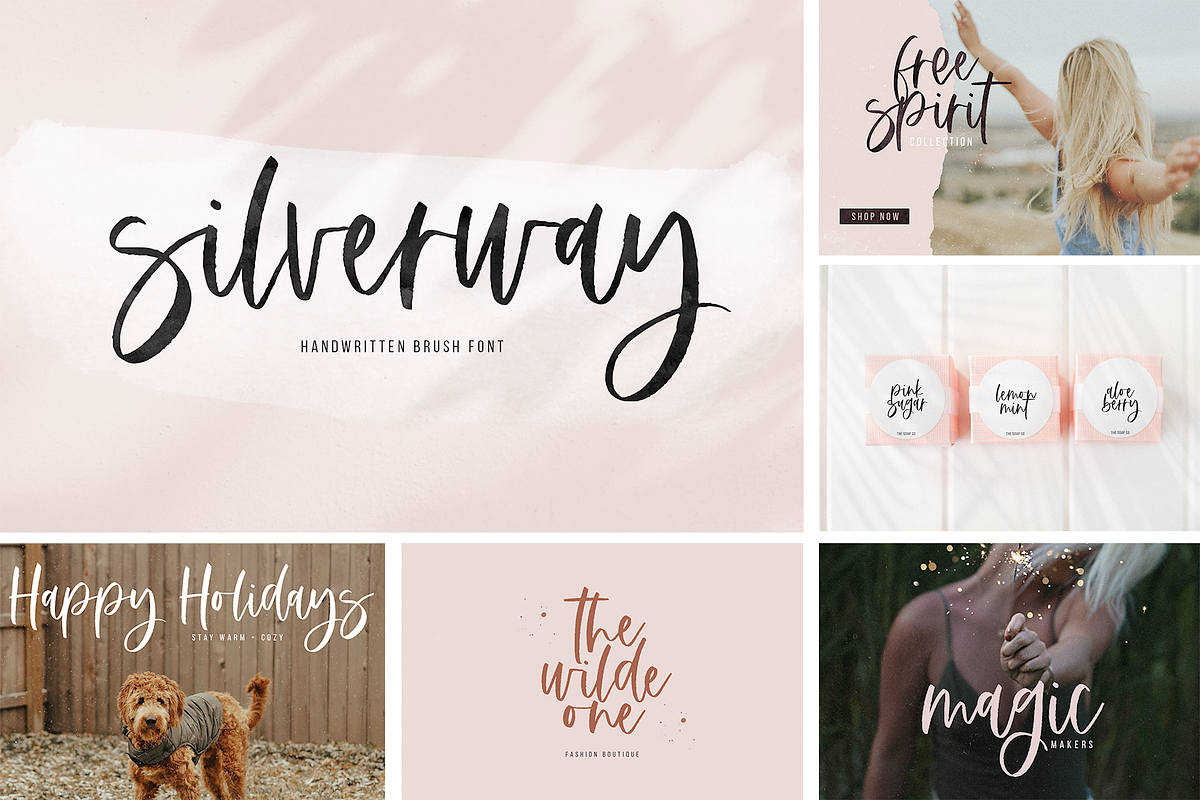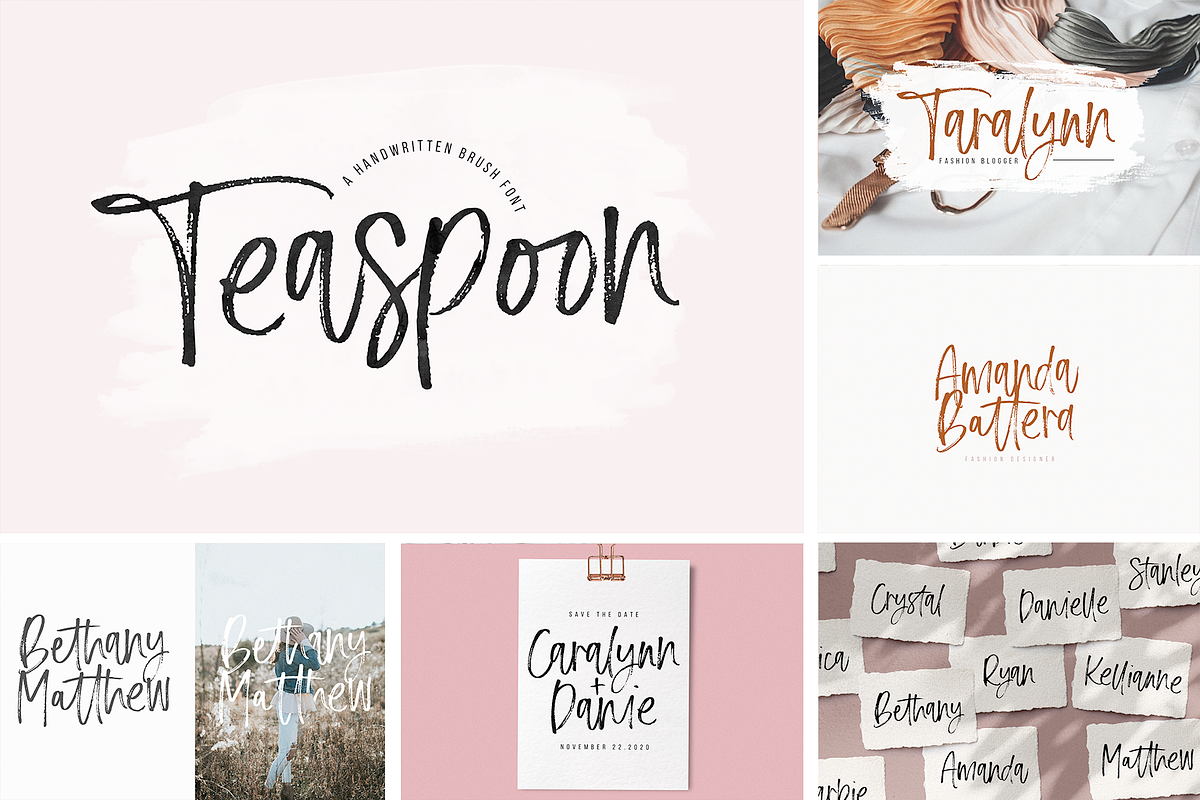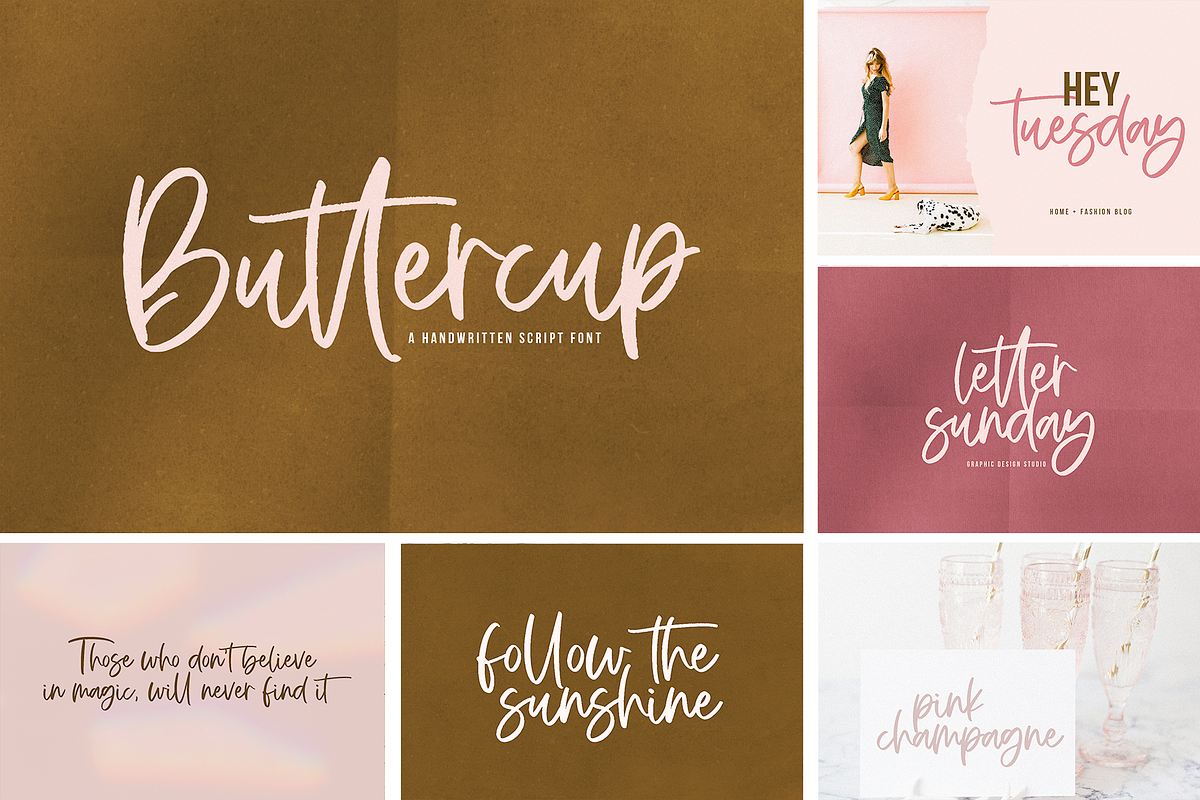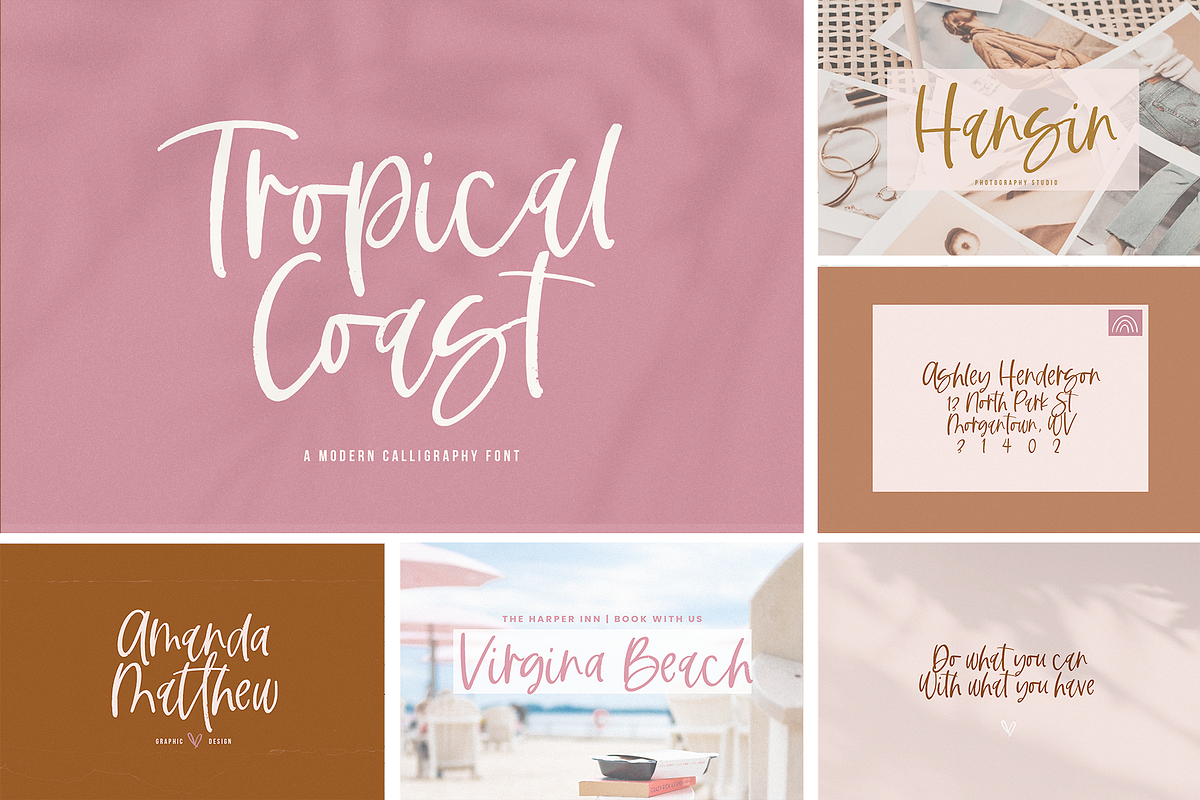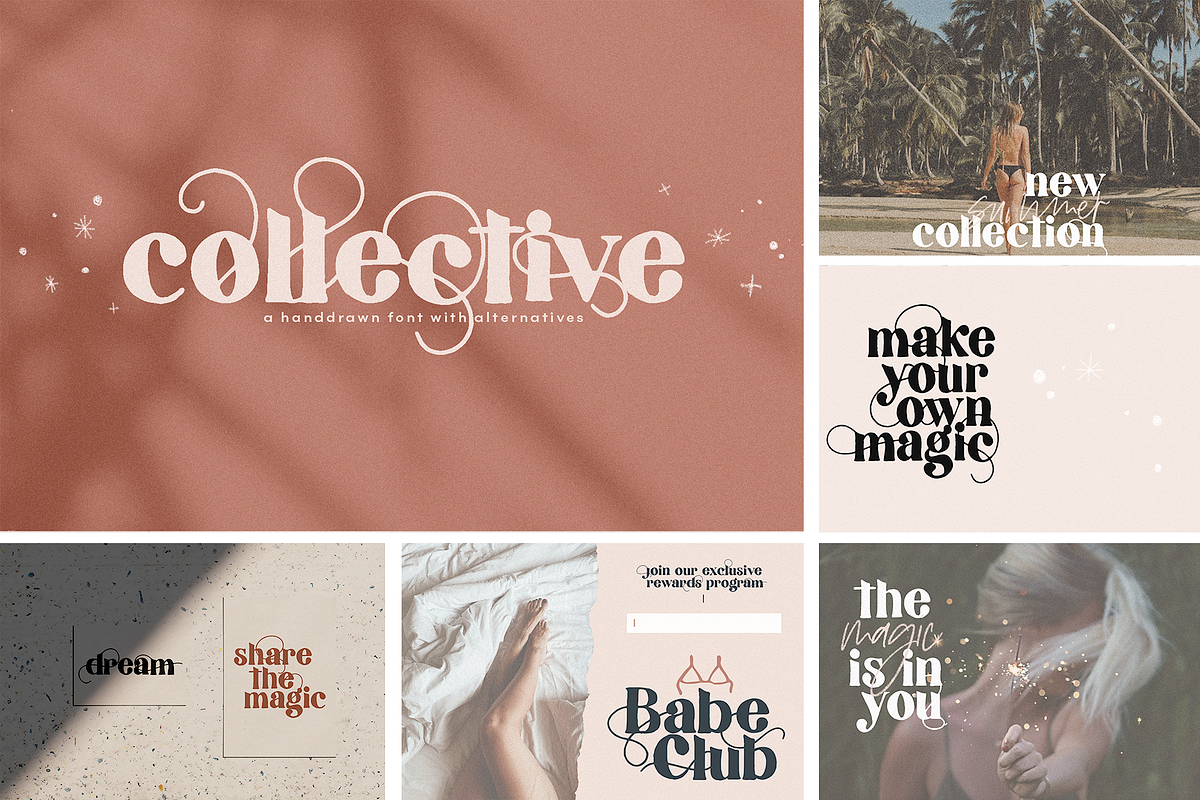
The Trendy Font BUNDLE
This bundle includes my favorite NEW fonts ! So.. even if you already many of the fonts included in this bundle.. this is still an AMAZING deal for you! You will get some brand new fonts before they are available for individual purchase!
There are also some fun graphic design elements included!
This bundle offers so many different styles of fonts - basic script, modern calligraphy, serif, sans serif, quirky, doodles and more! I wanted to offer a variety of styles to suit many different designers. Whether you are designing logos/branding, invitations, svg files, t-shirts, posters, websites, etc.. I think that you will be able to find some useful assets in this bundle!
The preview pictures only show a bit of what is included!
Additional Fonts Included
Countryside San Serif
Countryside Farmhouse Extras
Falling Leaves Script
Falling Leaves Extras